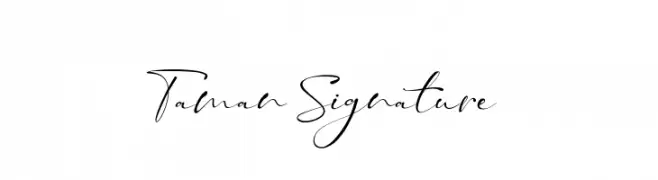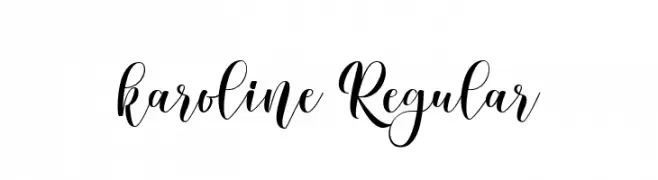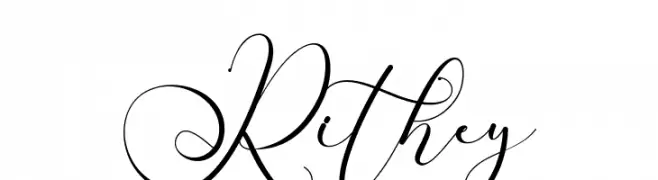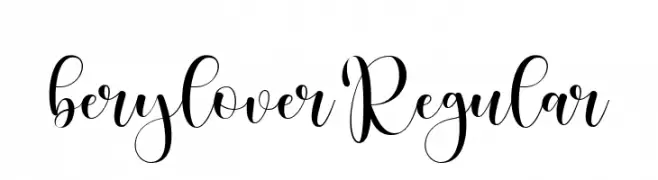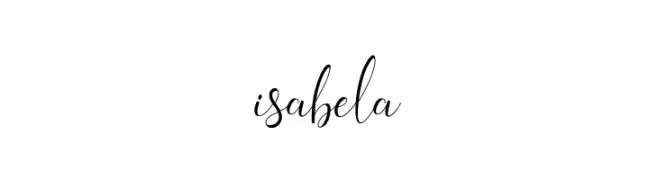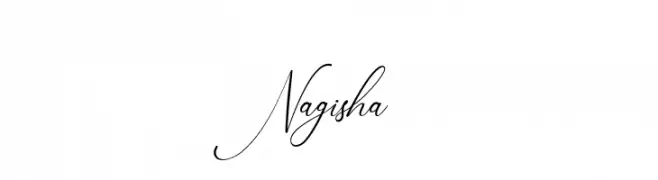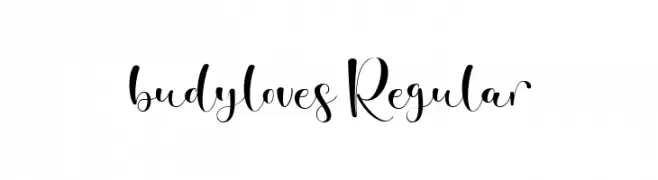
An elegant, flowing script font with a sophisticated, handwritten style.
An elegant and flowing script font with intricate flourishes.
A graceful, cursive font with elegant loops and swirls.
An elegant script font with flowing, interconnected letters and calligraphic style.
An elegant script font with intricate, flowing letterforms and decorative swirls.
An elegant script font with ornate flourishes and high contrast strokes.
An elegant, cursive script font with graceful loops and swirls.
An elegant, calligraphic script font with flowing, interconnected letters.
An elegant script font with flowing curves and decorative swirls.
An elegant and flowing script font with intricate, decorative letterforms.